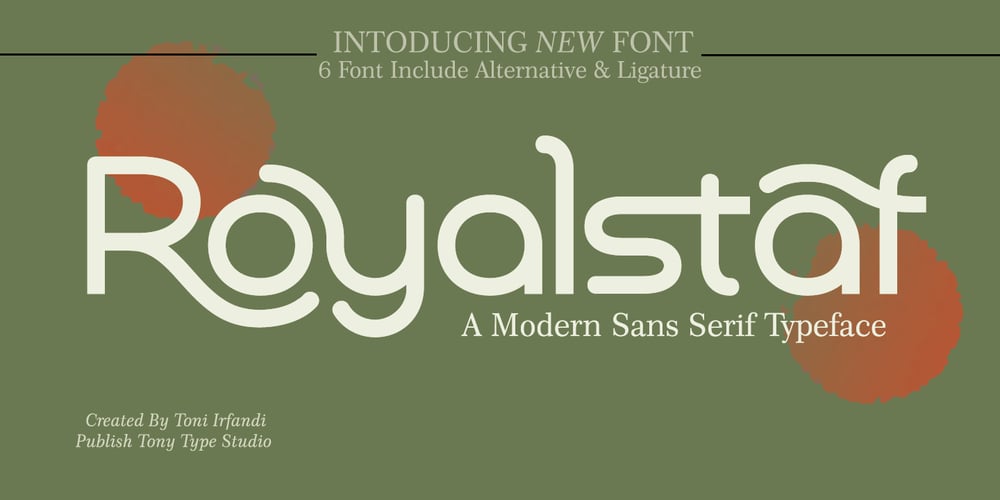
Royalstaf Font Family was designed by Toni Irfandi and published by Tony Type Studio. Royalstaf contains 6 styles and family package options. The Royalstaf Sans Serif font incorporates a unique, modern style that can be used in a variety of design projects. Royalstaf consists of 6 fonts from Thin, Oblique to Bold.Royalstaf helps give your project a different feel with such beautiful alternatives and ligatures, commitment to the same line thickness is Royalstaf character.